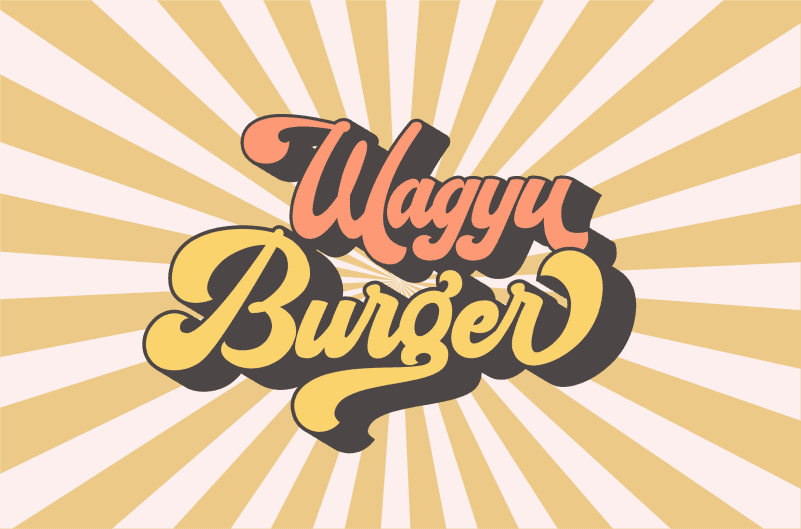
Rhapsody Script Typeface is a bold script typeface inspired by the vintage design from 70-ish. This retro typeface is really perfect typeface for you who needs a vintage design for logotype, t-shirt, vintage badge, retro quotes branding, packaging, quote etc.
Rhapsody features:
- A full set of upper & lowercase characters
- Numbers & punctuations
- Ligatures
- Multilingual language support
- PUA Encoded Characters
- 348 Glyphs
- Up to 100 Alternates!
- OpenType Features